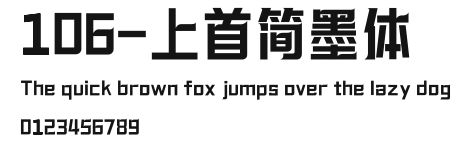
• Font Name: 106-上首简墨体
• Manufacturer: 上首造字
About 106-上首简墨体.ttf
106-上首简墨体.ttf is a modern, elegant sans-serif font designed for ultimate readability and visual harmony. Perfect for branding, headlines, web design, and print materials.